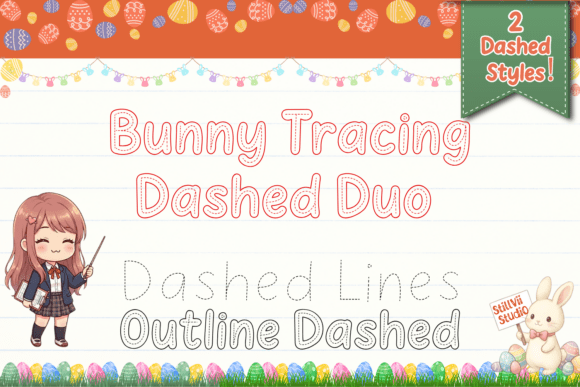
Hop into Handwriting with Bunny Tracing Dashed Duo
I still remember the time I was working on a project to create educational worksheets for a children’s learning center. I was on a mission to find the perfect font that would make learning to write a fun experience for kids. The client wanted a font that was specifically designed for early childhood education, with a playful touch. After hours of searching, I stumbled upon the Bunny Tracing Dashed Duo font, and it was love at first sight! đź’•
The Bunny Tracing Dashed Duo font is a game-changer for anyone looking to create engaging and interactive learning materials for kids. This font set includes two distinct styles—Dashed Lines and Outline Dashed—which are crafted specifically to help children master letter formation and pen control. In this article, we’ll dive into the world of Bunny Tracing Dashed Duo, exploring its features, benefits, and practical applications.
- ✨ Perfect for early childhood education: The font’s design is tailored to help children learn to write, making it an excellent choice for teachers, parents, and homeschoolers.
- 🎉 Playful and engaging: The Easter-themed design adds a fun twist to handwriting practice, making it an enjoyable experience for kids.
- đź’Ż High-quality design: The font is well-crafted, with clear and consistent letterforms that are easy to read.
While the Bunny Tracing Dashed Duo font is an excellent tool, there are a few minor limitations to consider:
- 🤔 Limited character set: The font is designed specifically for handwriting practice, so it may not have the full range of characters you’d find in a standard font.
- ⚠️ Not suitable for large text: The font is best used for small to medium-sized text, as it may not be legible at larger sizes.
The Bunny Tracing Dashed Duo font was designed with the intention of making handwriting practice a fun and engaging experience for kids. The designer, a passionate advocate for early childhood education, wanted to create a font that would help children develop their fine motor skills and handwriting abilities. The Easter-themed design was added to make the font more appealing and enjoyable for kids.
Q: What is the Bunny Tracing Dashed Duo font designed for?
A: The Bunny Tracing Dashed Duo font is designed specifically for early childhood education, to help children master letter formation and pen control.
Q: Is the Bunny Tracing Dashed Duo font suitable for large text?
A: No, the font is best used for small to medium-sized text, as it may not be legible at larger sizes.